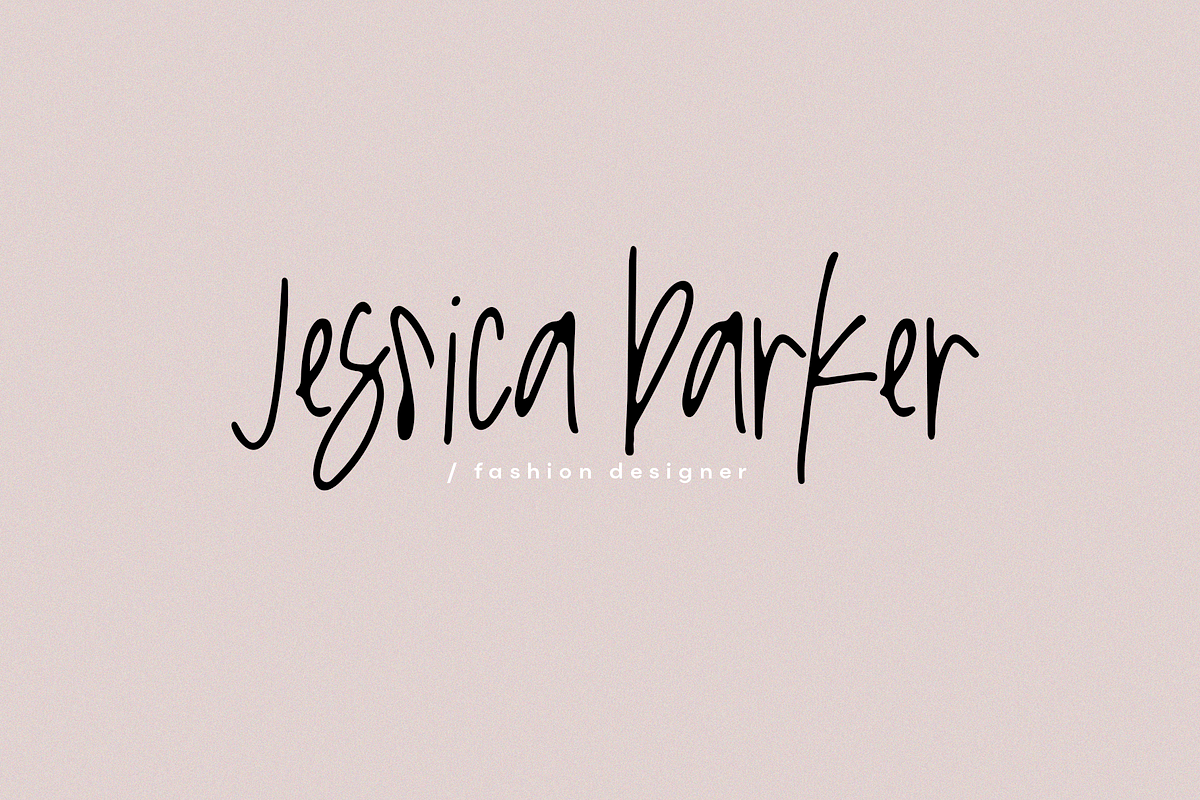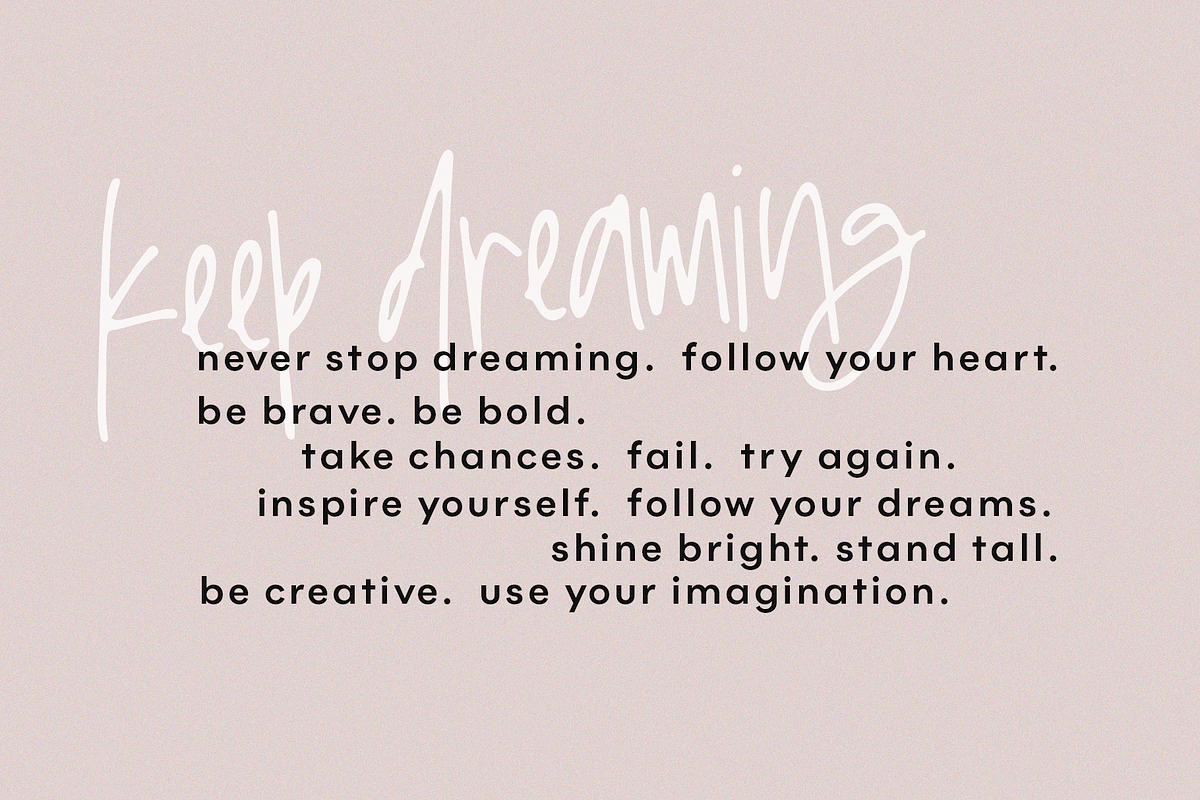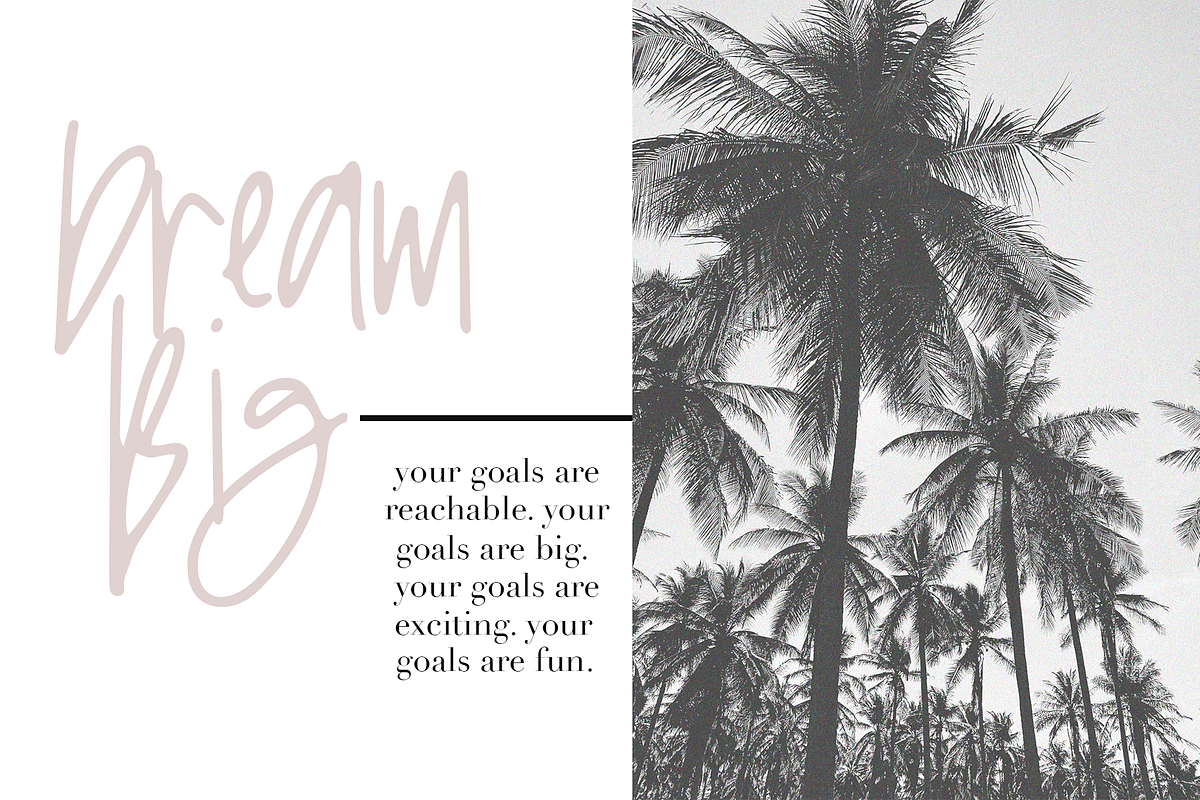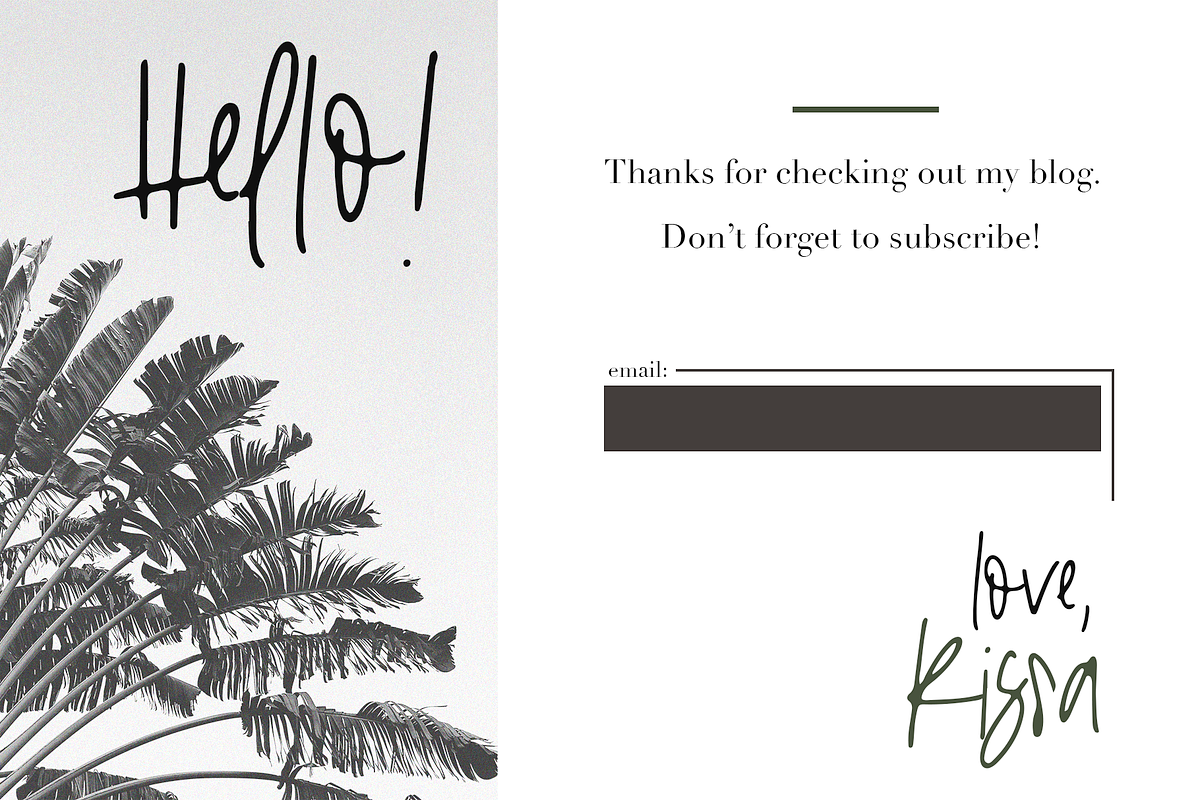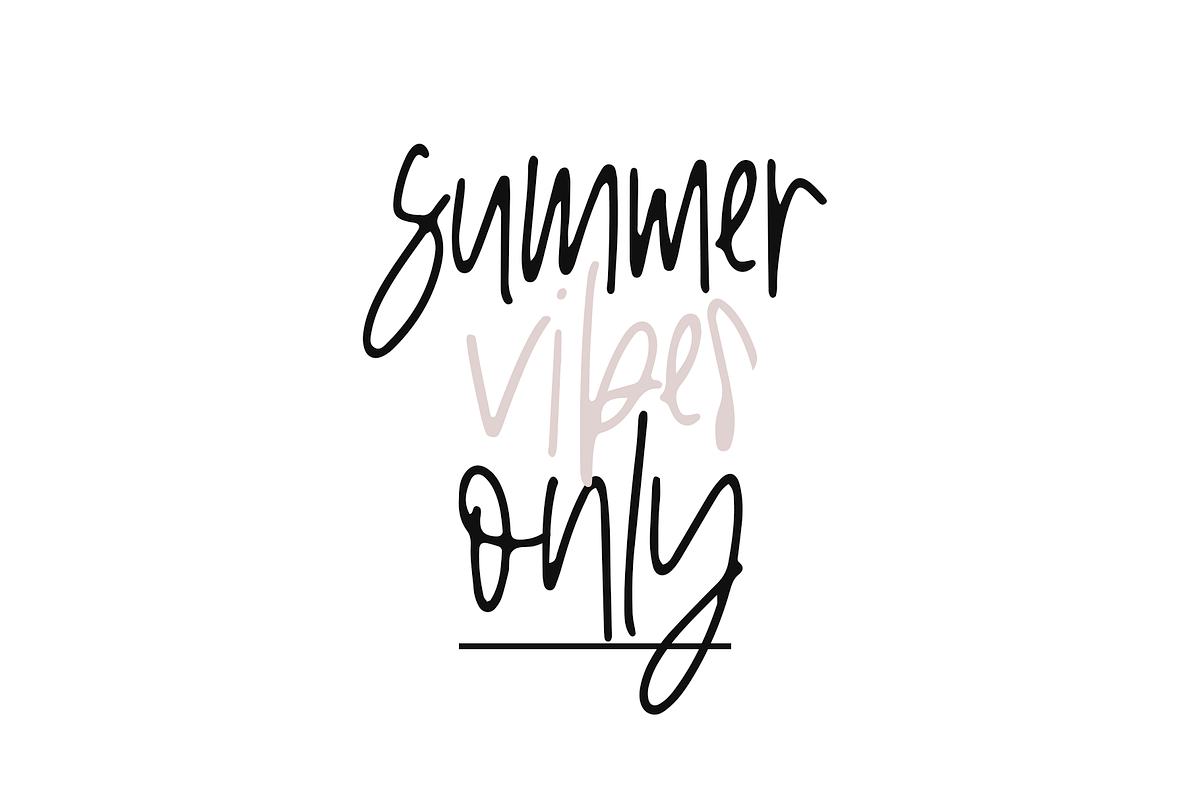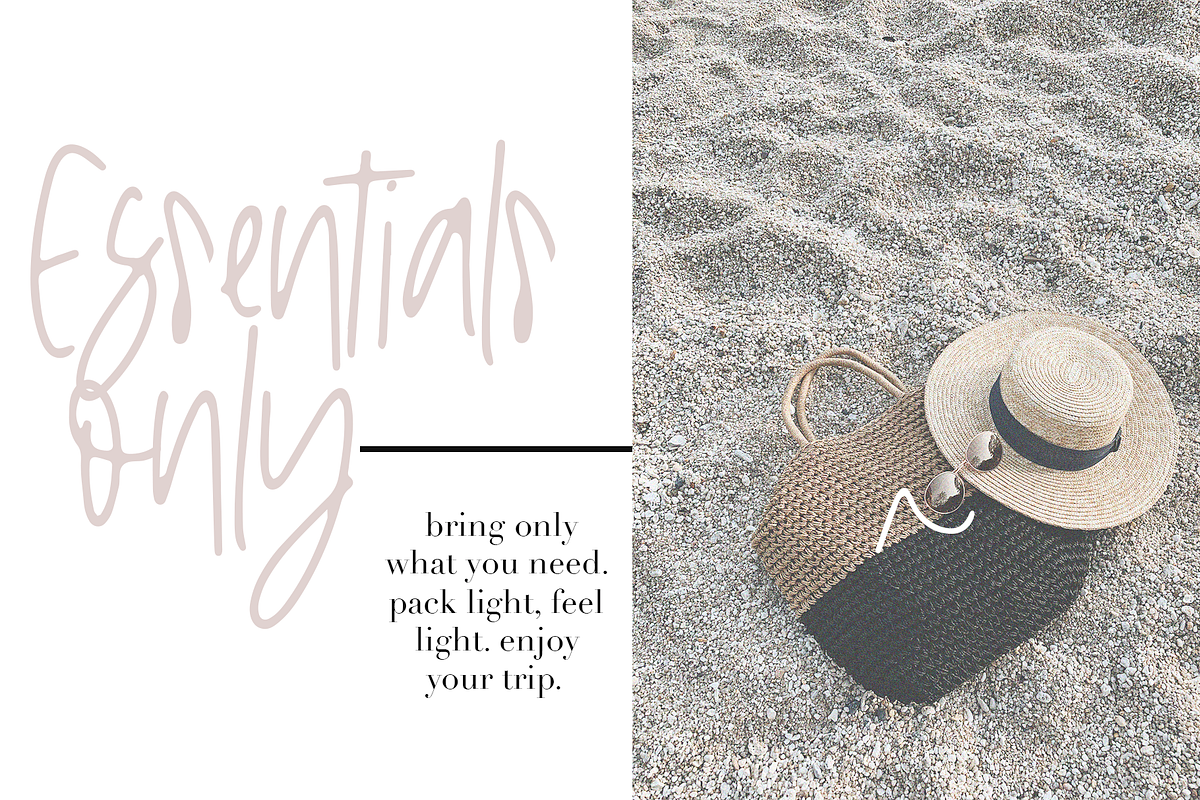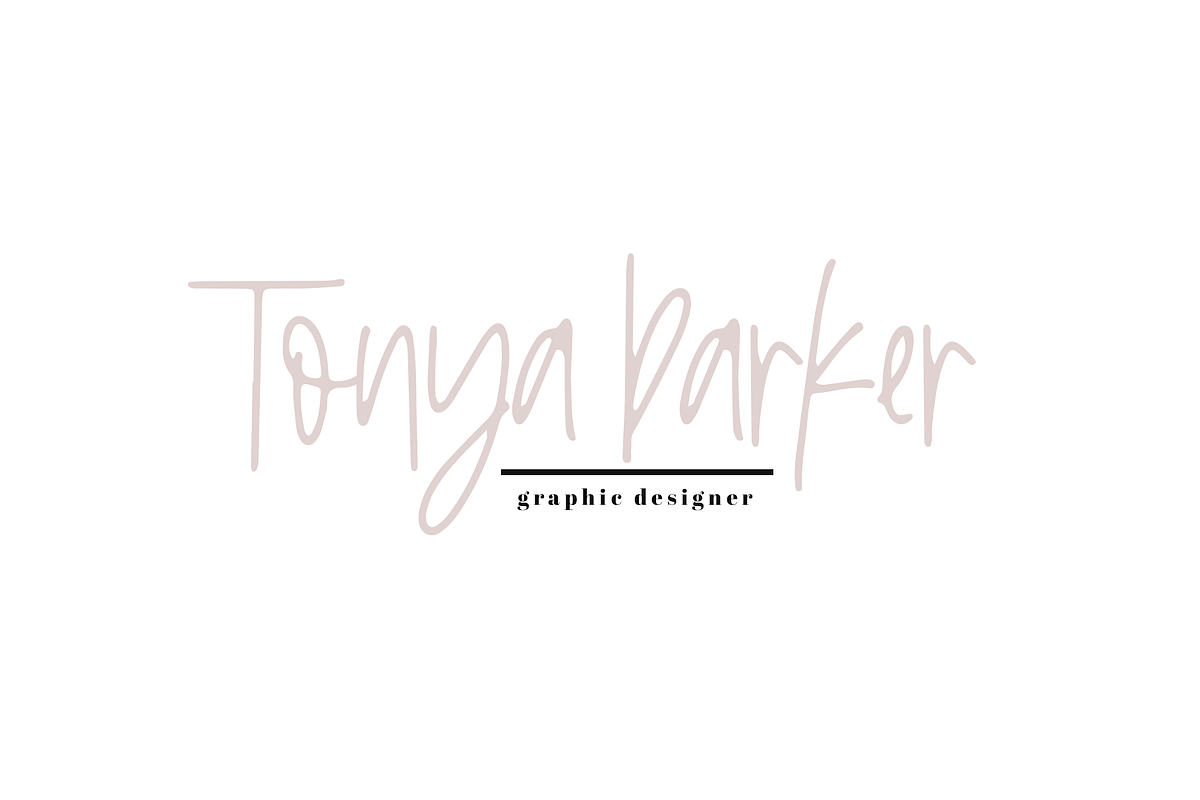
Logan Ann - A Handwritten Font
Logan Ann is a messy yet chic, handwritten font. This font is perfect for branding, quotes, social media, blogs, logos, and more!
- There are many alternative letters included to give you an authentic handwritten look!
- Logan Ann Regular